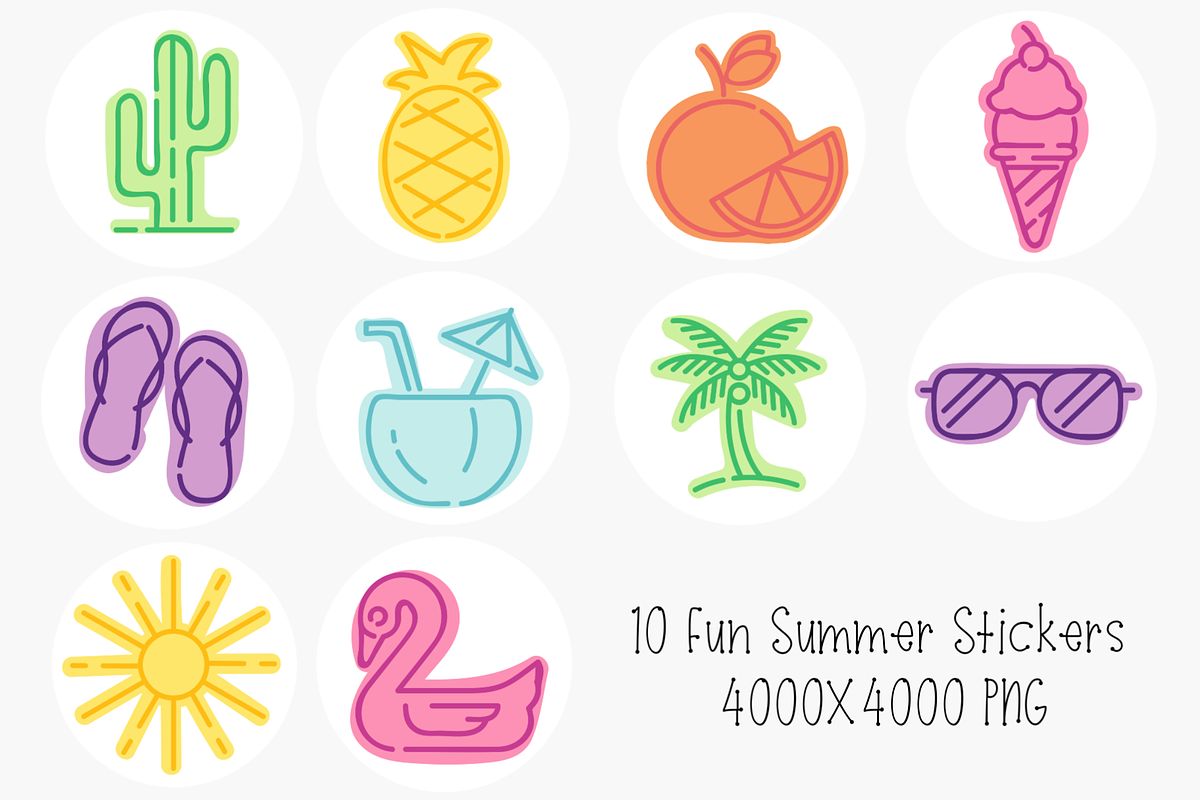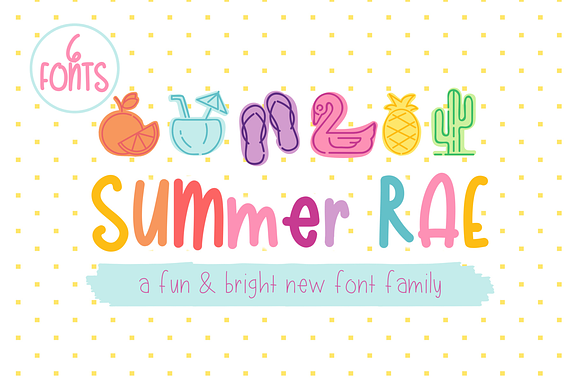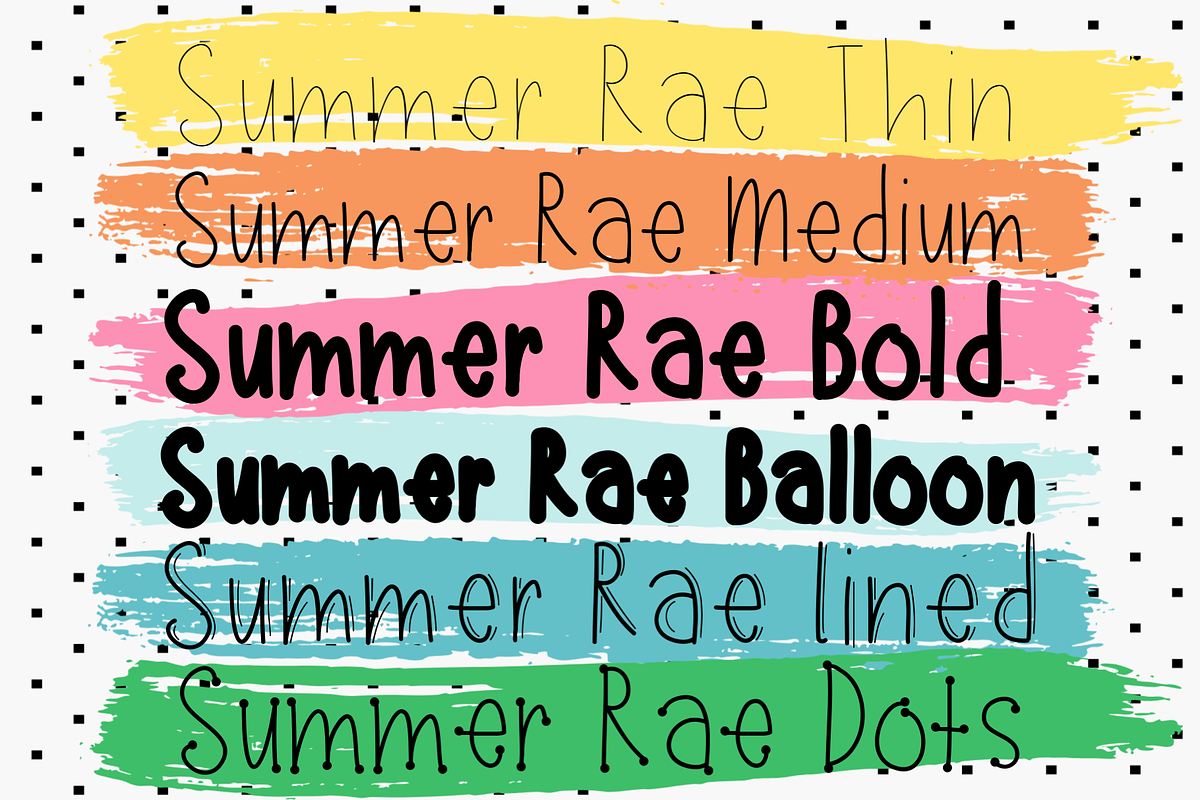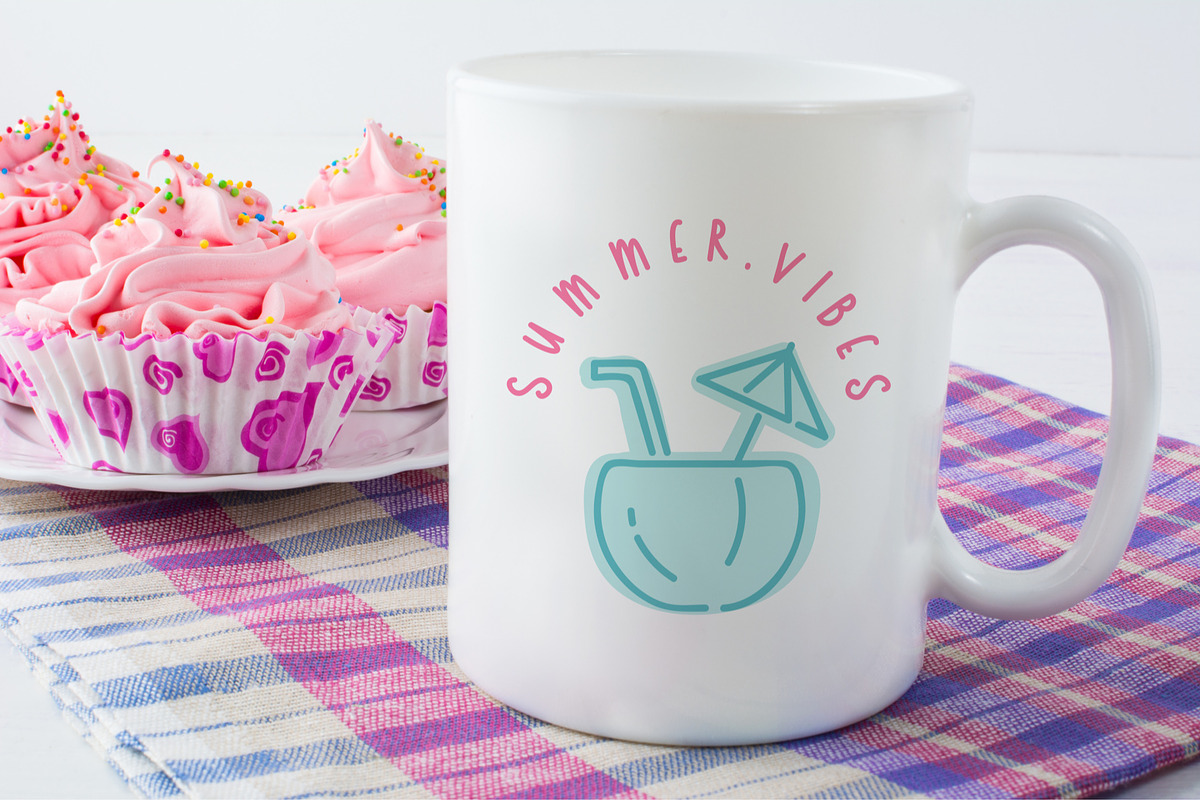
Summer Rae | Font Family of 6
Fun Family of 6! Create all the cuteness with this wide variety of hand written fonts.
Fonts include: Summer Rae Thin Summer Rae Medium Summer Rae Bold Summer Rae Balloon (extra bold) Summer Rae Lined Summer Rae Dots
Summer Rae | Font Family of 6 by Jande Summer fits naturally into Branding, posters, packaging, typography.